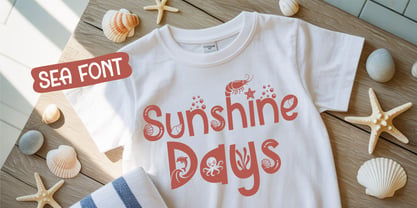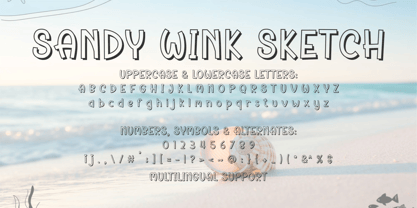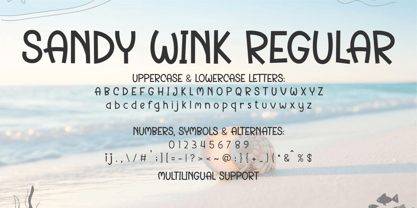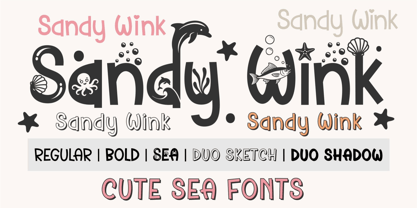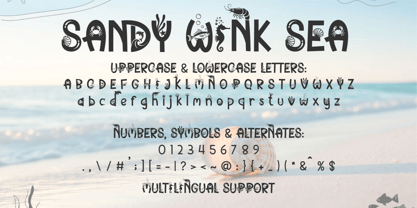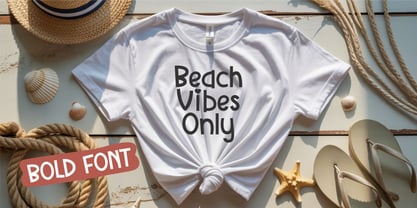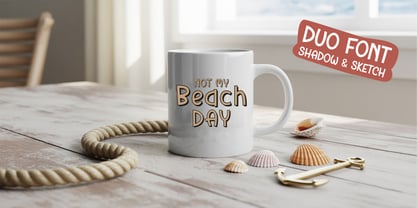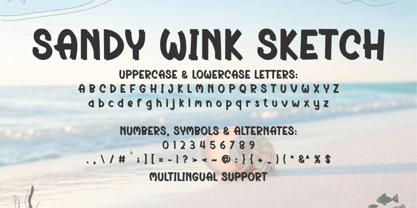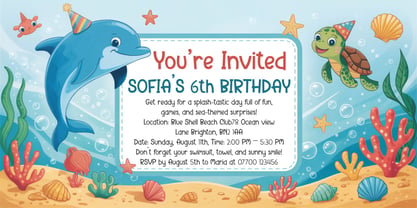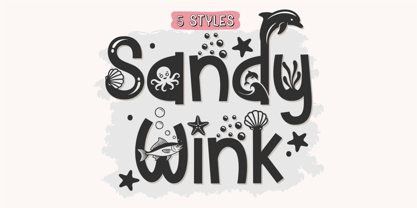
Sandy Wink
The Sandy Wink Font Family was designed by Tony Balios and published by Tonis Art Studio. Sandy Wink contains 5 styles and family package options. More about this family
Sandy Wink is a playful and modern font family inspired by the joy of childhood, beach days, and undersea adventures. With bold rounded letters and a whimsical ocean theme, each style adds personality and charm to your projects. From sea creatures peeking out of letters to bubble-like shapes and sketchy doodles, Sandy Wink brings a fun, handmade vibe to any design.
This family includes 5 unique styles:
✔ Regular – clean and bold for everyday use
✔ Bold – slightly thicker for standout designs
✔ Sea – with sea-themed icons inside the letters
✔ Sketch & Shadow – a dynamic duo designed to layer perfectly together for creative depth and dimension
Whether you're designing birthday invitations, classroom posters, kids’ apparel, Cricut projects, or playful logos, Sandy Wink is a font that sparks imagination and joy. It’s perfect for teachers, crafters, digital creatives, and small business owners who want to add a splash of fun to their work.